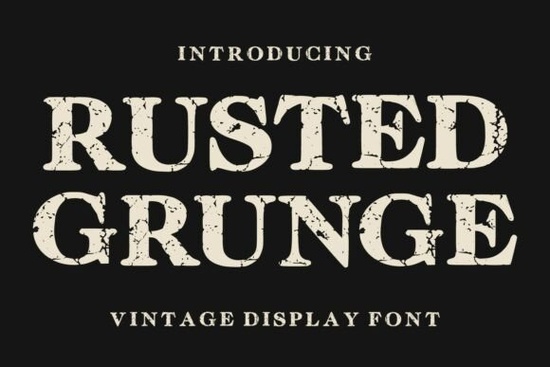
If you’re searching for a font that instantly gives your work a worn, aged look, the Rusted Grunge font delivers exactly that. It’s a bold vintage display typeface with a rough, distressed texture that mimics old signage and faded printing. Designers working on posters, branding, or print-on-demand products often need a typeface that feels authentic without looking fake or overly digital. This slab serif font hits that sweet spot strong letterforms combined with a gritty surface that makes any project feel like it has history.
What makes the Rusted Grunge font different from other distressed fonts?
Many grunge fonts rely on random splatters or cracks that can make text hard to read. This one keeps legibility high while still looking worn. The letters are chunky and sturdy, with a slab serif structure that stays readable at smaller sizes. The texture is more like rust or weathered metal than a messy brush stroke. It works well for both headlines and short blocks of text, especially when you want a retro western or industrial feel.
Another difference is its balance. The distressed effect is consistent across all characters, so you don’t get some letters clean and others completely broken. That makes it easier to use in logos or product labels where consistency matters. If you’ve tried other distressed fonts that look too chaotic, this one offers a controlled ruggedness.
How can you use Rusted Grunge for your projects?
Whether you design for Etsy, Redbubble, or your own brand, this font works in several places:
- T-shirt designs – Add bold quotes or band names with that vintage concert poster feel.
- Logos and branding – Perfect for coffee shops, barbershops, or mechanic garages that want a rustic look.
- Packaging – Use it on labels for craft beer, candles, or homemade goods to suggest authenticity.
- Social media graphics – Stand out with gritty text overlays on desert or industrial photos.
- Album covers – Great for rock, country, or folk music aesthetics.
The rough texture pairs naturally with muted colors, kraft paper backgrounds, or vintage vector illustrations. You can also layer it with textures for even more depth.
Which designers and small businesses should consider this font?
Print-on-demand sellers often look for typefaces that don’t require heavy editing. Since Rusted Grunge already includes the wear and tear, you can drop it into a design and scale it without losing detail. Small business owners who want a handcrafted look without hiring a lettering artist will find it practical. It’s also a solid choice for creative hobbyists making posters for local events or personal projects.
The font fits especially well with slab serif fonts that have a sturdy, grounded feel. If you're building a font library, this one adds a distinct voice that bridges classic western typography and modern grunge design.
What kind of projects should you avoid with this font?
Because of its strong character, it’s not ideal for long body text or very formal materials. Wedding invitations or corporate reports might clash with the rugged tone. It also works best at medium to large sizes using it at 12pt for a paragraph will lose the grunge detail and may become hard to read. Stick to headlines, logos, and short phrases for the best results.
Where does Rusted Grunge fit in the vintage retro font category?
If you already own vintage display fonts that are clean or script-based, this one offers a complementary rough slab serif option. It expands your range for projects that need a tougher, more industrial feel. Combined with other vintage retro typefaces, you can mix and match to create layered designs that look like they were printed decades ago.
The font’s inspiration comes from old signage and worn printing styles, which means it naturally carries a nostalgic weight. Designers focused on authentic retro aesthetic will appreciate that it doesn’t look like a cheap filter the texture is part of the font itself.
Practical checklist before you start using it
- Test the font at your intended size – open a sample file and type your text to see how the grunge appears.
- Pair it with clean sans serif or simple script fonts for contrast.
- Use it on textured backgrounds (paper, concrete, wood) to enhance the vintage effect.
- Keep the color palette muted – browns, blacks, rust reds, and off-whites work best.